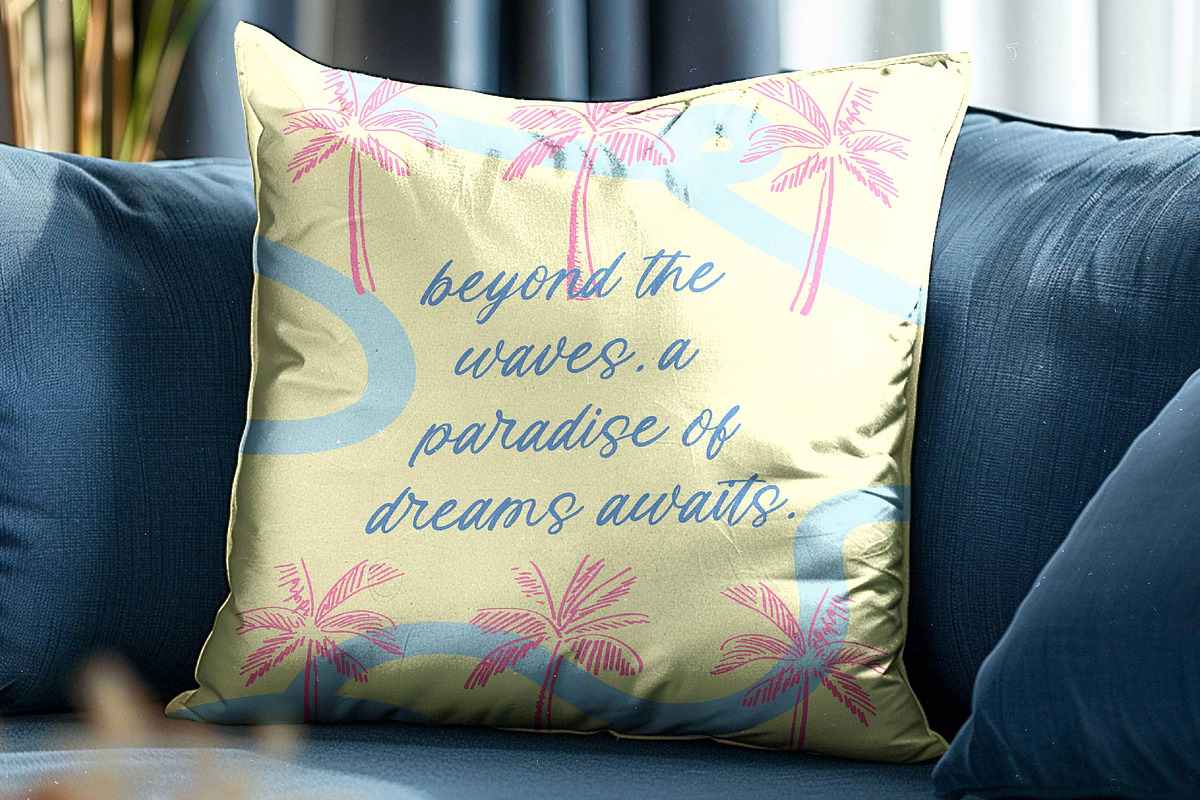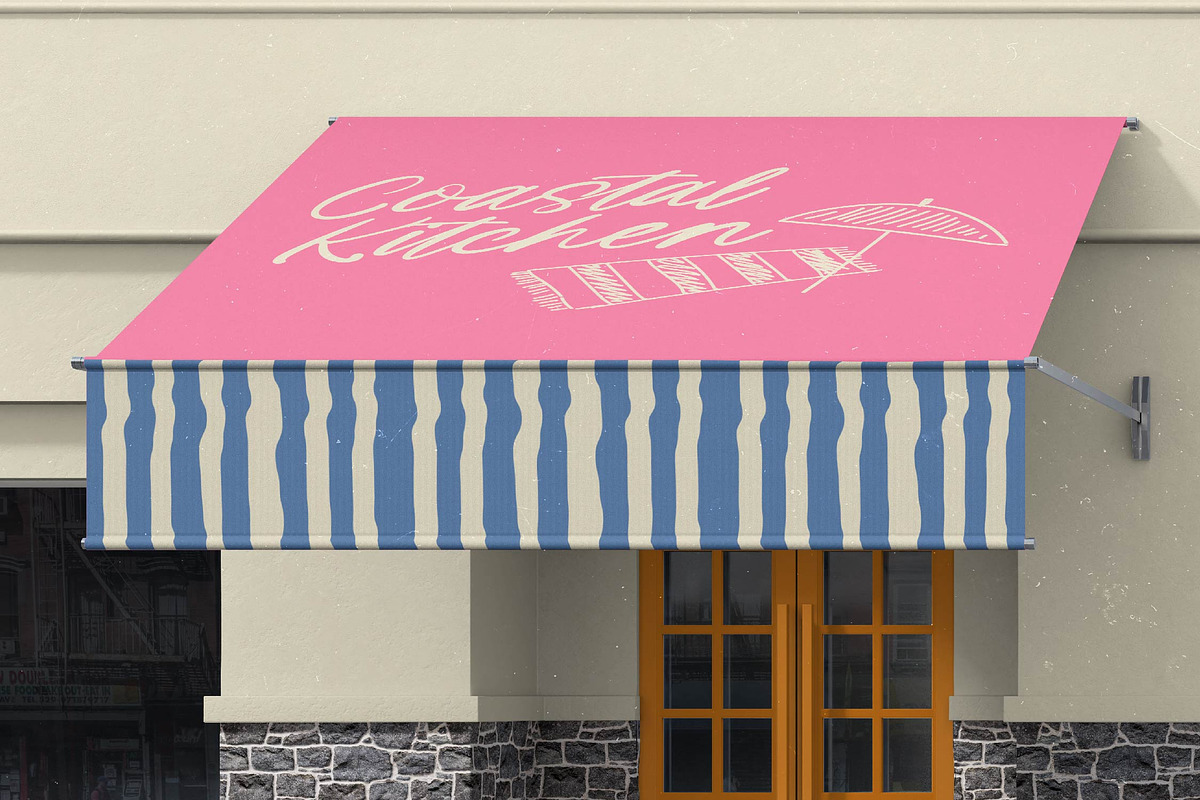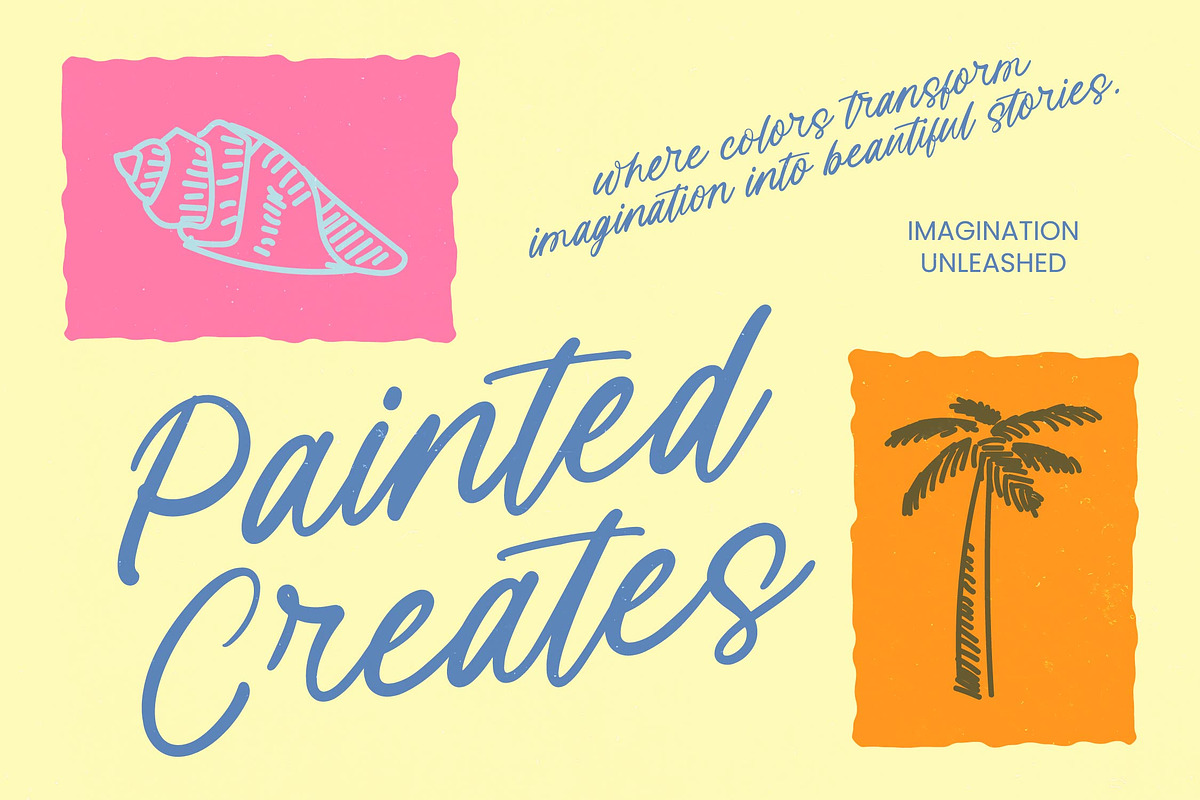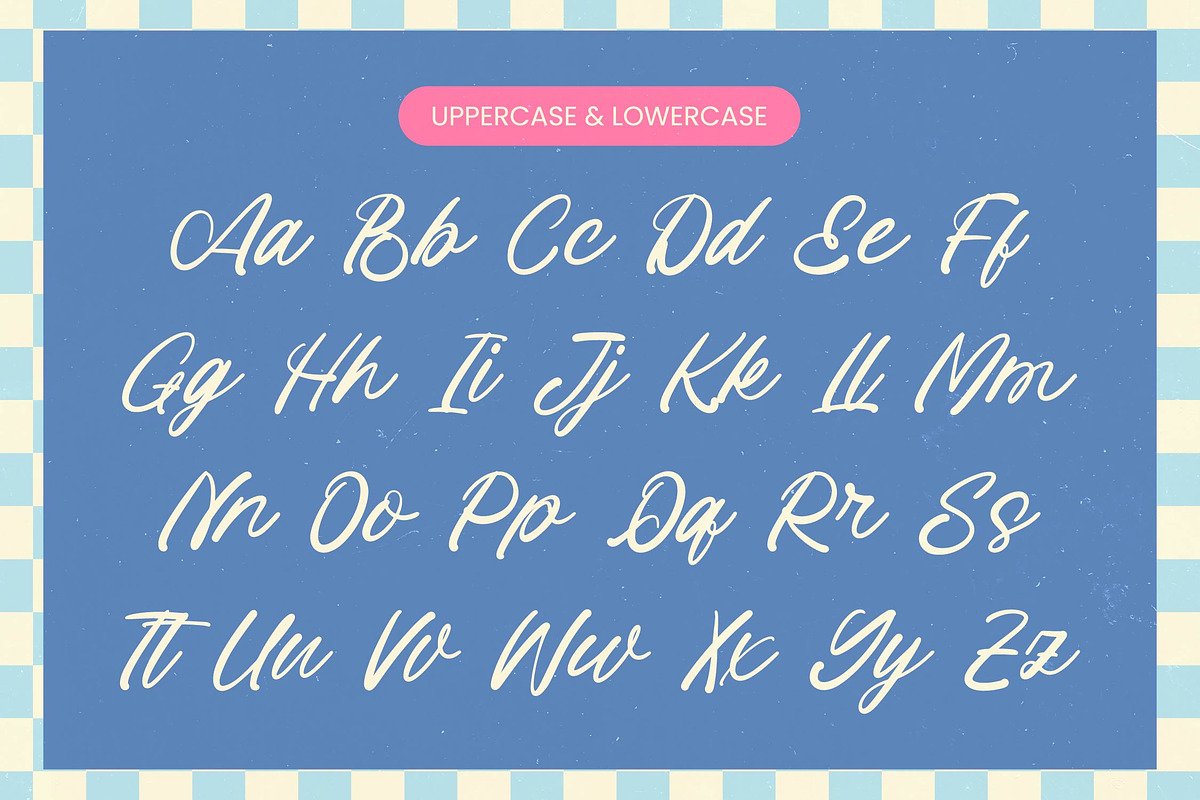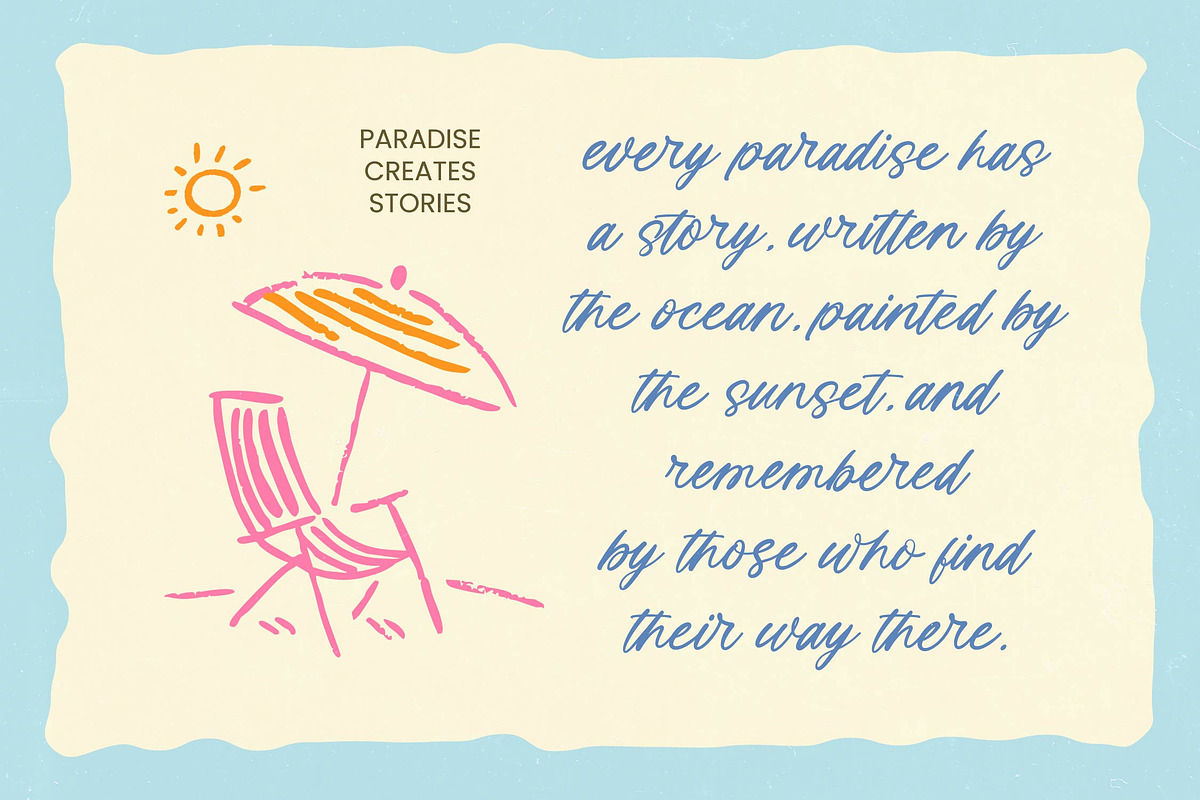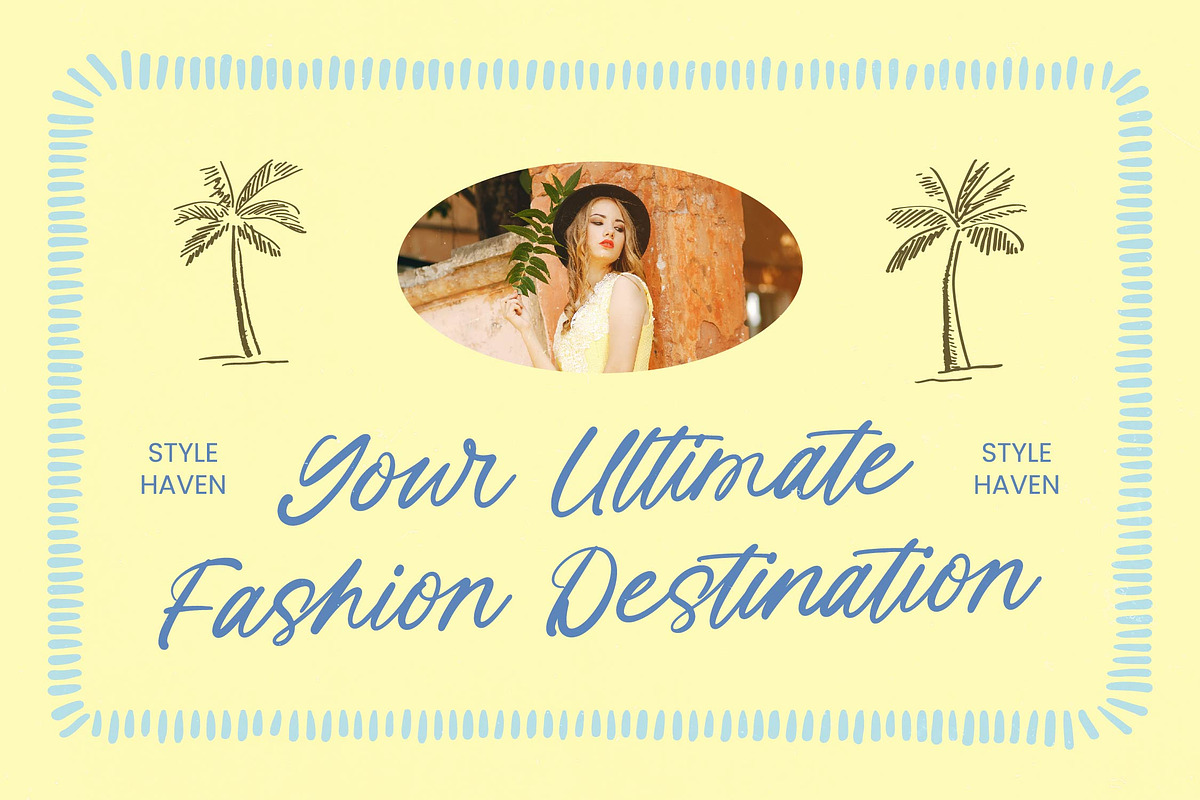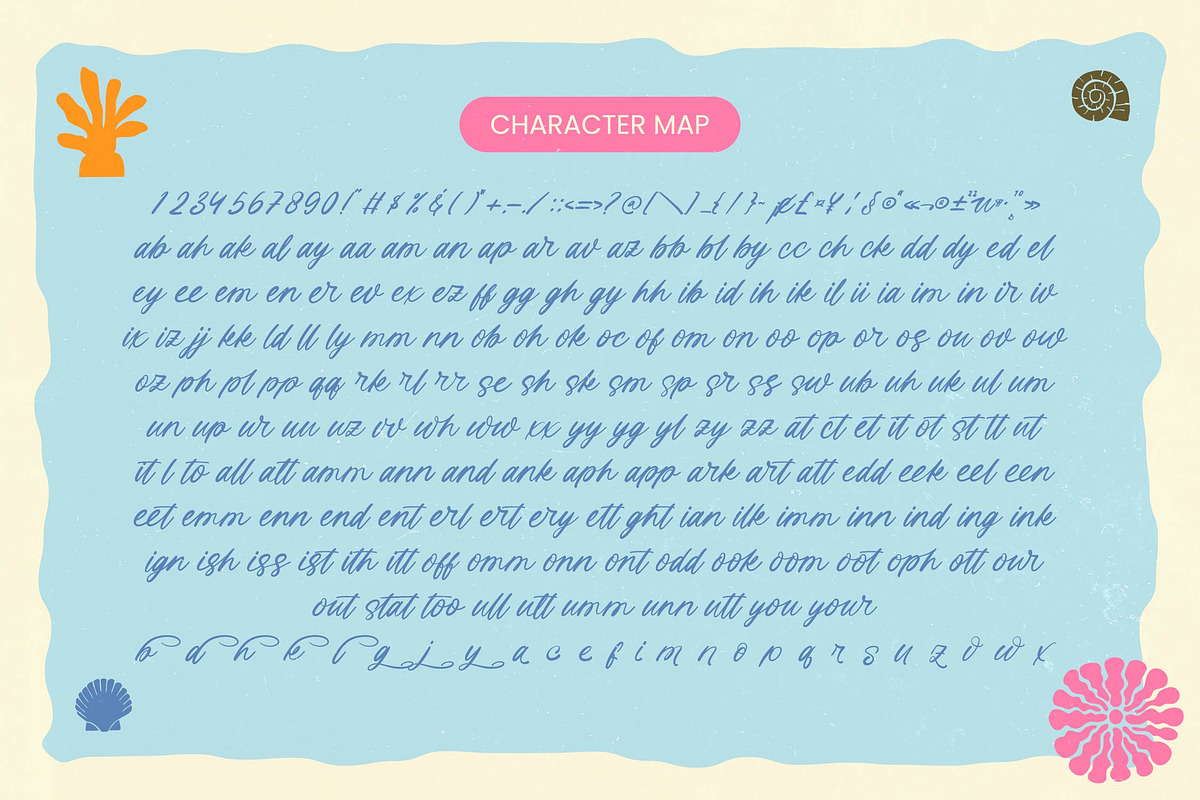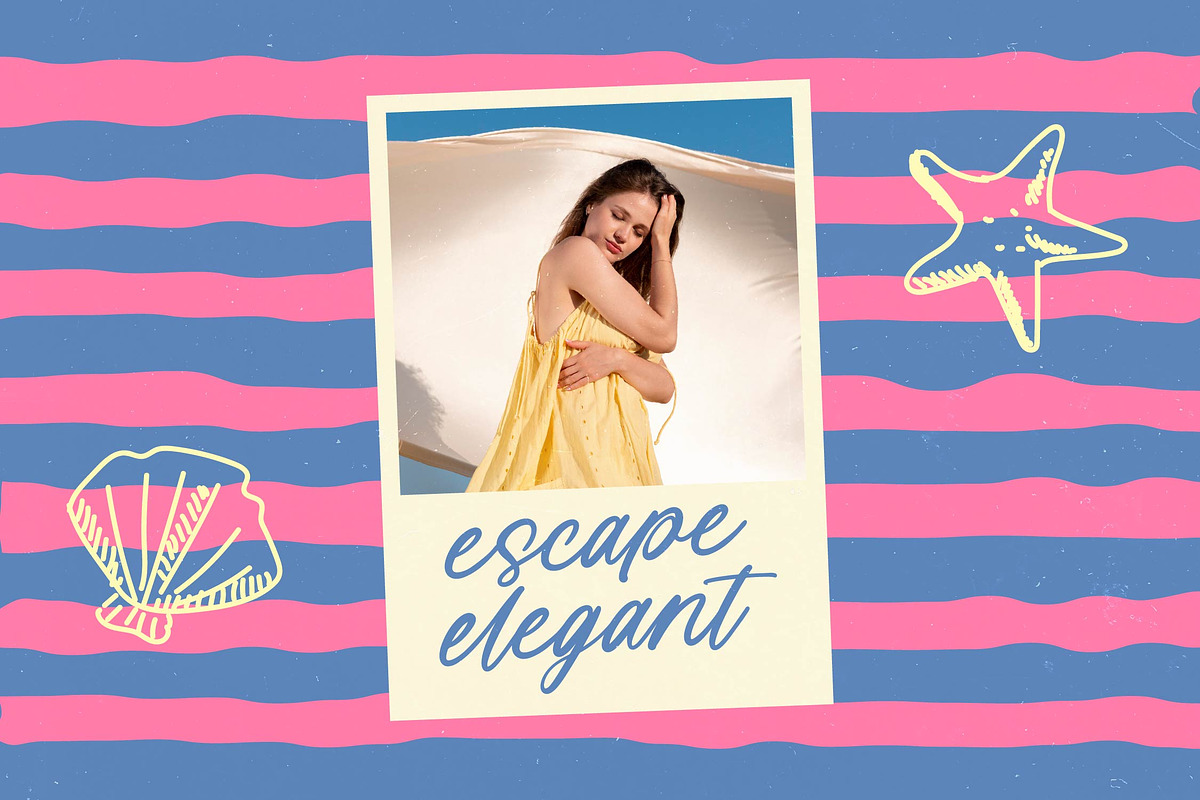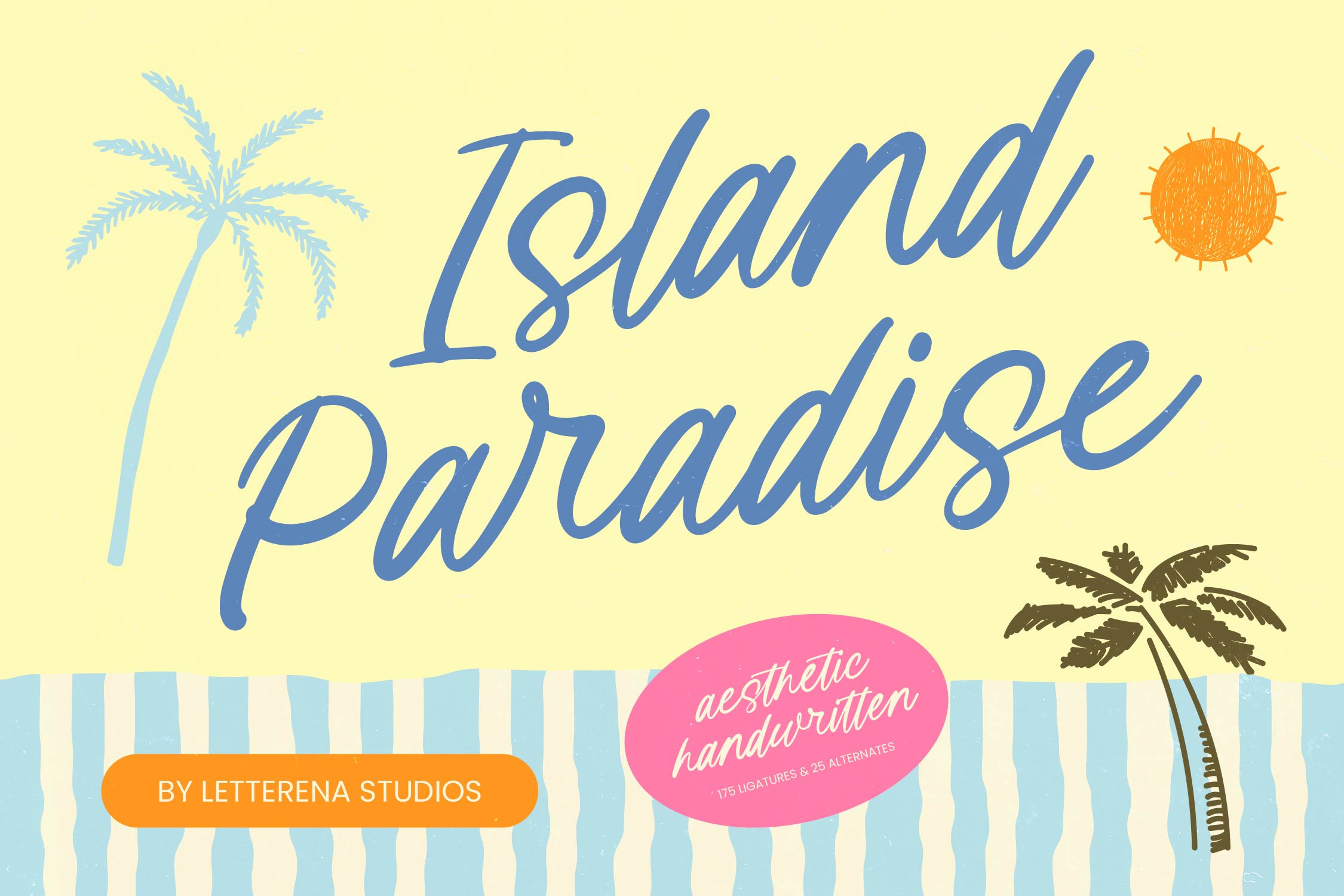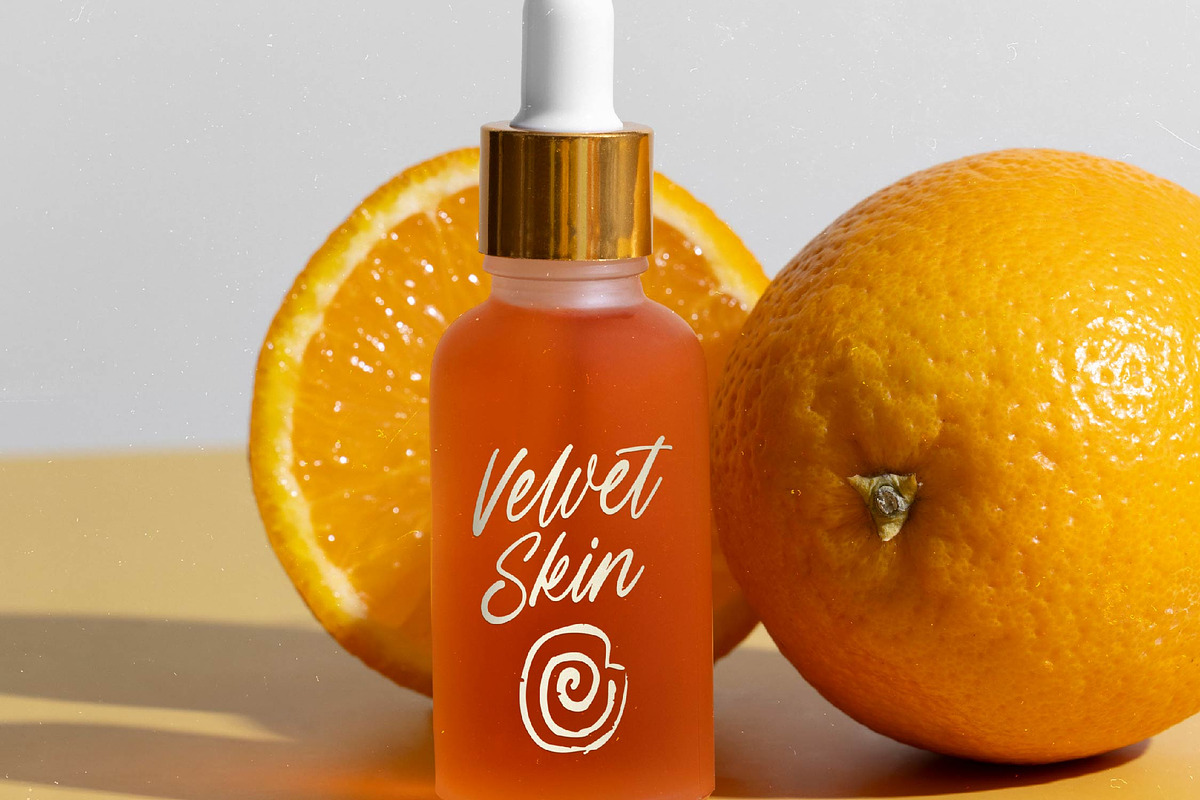
Island Paradise Aesthetic Font
Island Paradise - Aesthetic Handwritten
Elevate your design projects with a touch of effortless organic elegance. The Island Paradise - Aesthetic Handwritten font captures a unique casual luxury, blending a fluid monolinear script with an authentic handwritten charm. This typeface is designed to bring a sense of warmth and human connection to any layout, offering a visual aesthetic that is both approachable and sophisticated for modern audiences.
Experience unmatched creative freedom through a rich library of premium OpenType features that enhance every character. Featuring 175 custom ligatures and 25 stylistic alternates, Island Paradise - Aesthetic Handwritten allows designers to achieve a natural rhythm and bespoke typography look. These carefully crafted variations ensure that your text never appears repetitive, maintaining a high-end, custom-lettered feel that is essential for premium visual identities.
Reach a global audience without compromising on style or consistency in your branding strategy. With its extensive multilingual support, Island Paradise - Aesthetic Handwritten adapts seamlessly across global markets, making it incredibly versatile for international projects. Whether you are targeting local consumers or a worldwide demographic, this font maintains its visual integrity and legibility across a wide range of Latin-based languages and character sets.
Transform your brand identity with a typeface that is perfect for luxury branding and lifestyle packaging. The versatile nature of Island Paradise - Aesthetic Handwritten makes it the ideal choice for editorial layouts, sophisticated wedding stationery, and high-impact social media graphics. From boutique signage to modern logo design, this font provides the creative flexibility needed to make your brand stand out in a competitive marketplace.